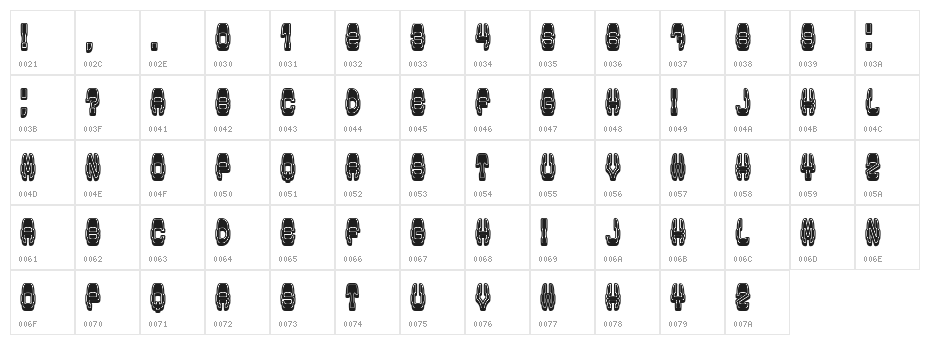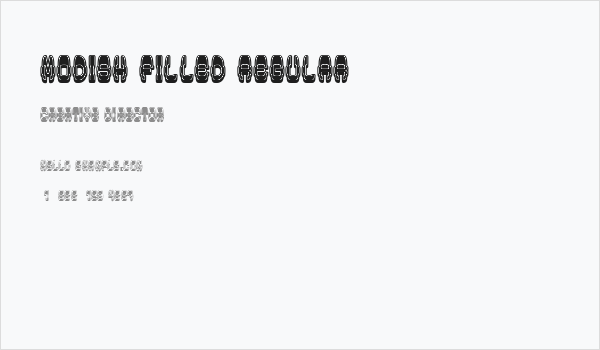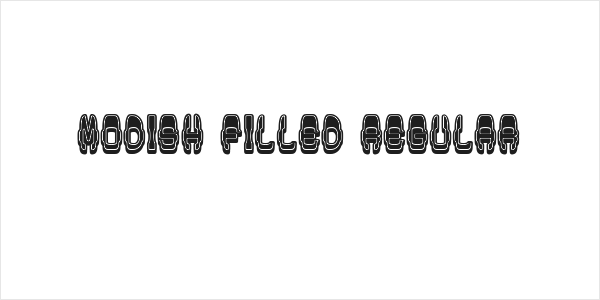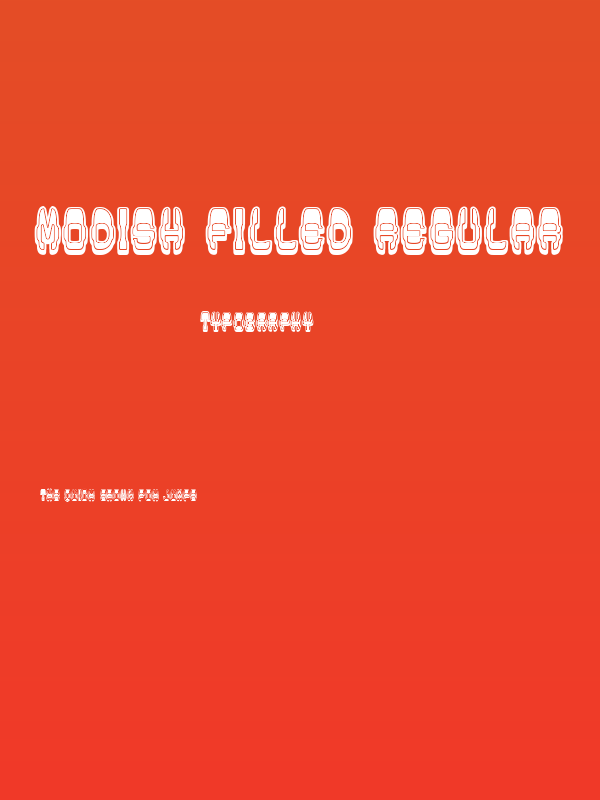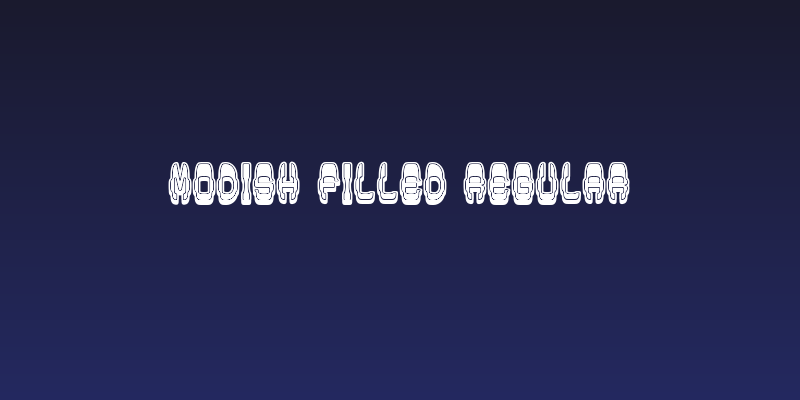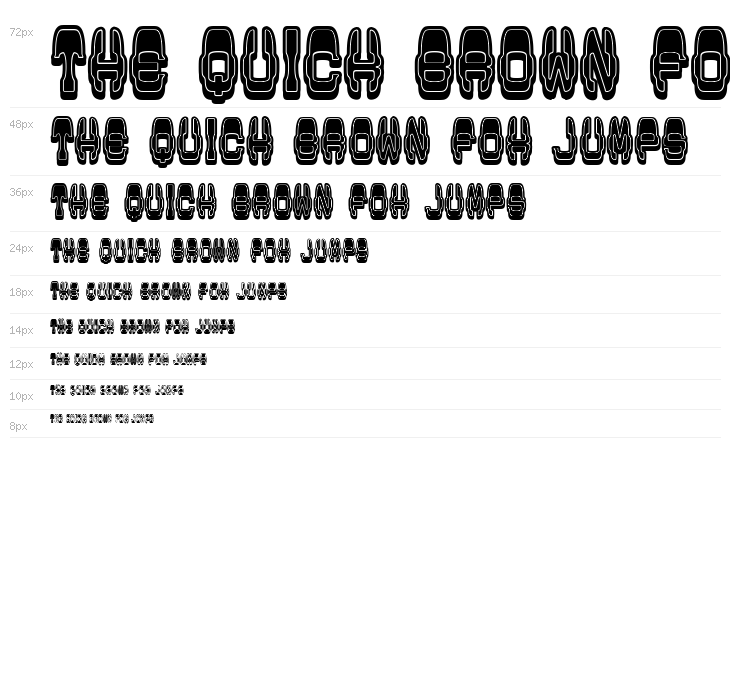
Modish Filled Regular Font
Modish Filled Regular Description
This font features a bold, filled design with a modern and decorative style. The characters are outlined with a thick black border, creating a striking contrast against the white fill. The letters are uniformly wide, with a consistent, blocky appearance that gives them a strong presence. The font's geometric shapes and clean lines make it highly legible, while the decorative outline adds a unique flair. This style is particularly eye-catching and would stand out in any design project.
| Proposed Projects | Ideal for headlines, posters, logos, and any design needing a bold, eye-catching typeface. |